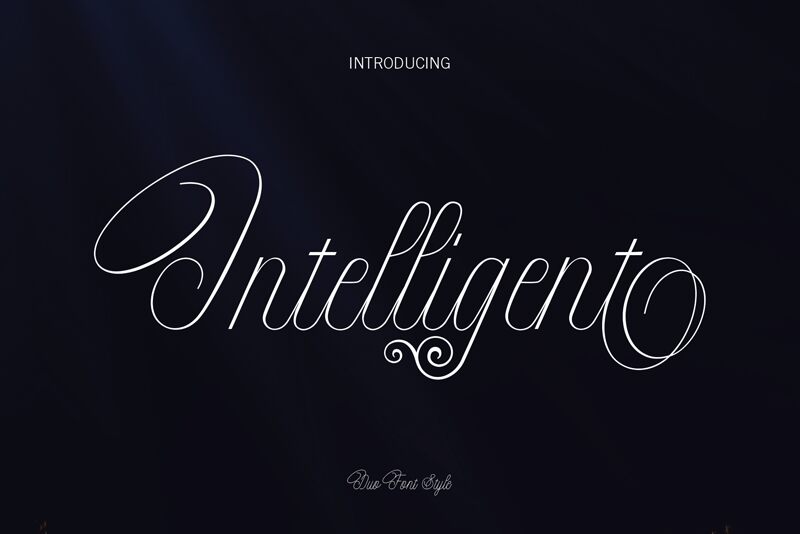
Intelligent Line, crafted by Danti Studio, is a refined and contemporary calligraphic font from the Intelligent family. This handwritten typeface exudes a modern elegance with its unique, natural writing style. Its light weight paired with an appealingly condensed width offers an airy yet sophisticated feel, making it stand out in any design.
Perfect for branding projects, invitations, and editorial pieces, Intelligent Line infuses a touch of class and personality into every letter. It bridges traditional calligraphy with modern aesthetics seamlessly, providing versatility while maintaining its distinctive character. Ideal for designers seeking to impart sophistication and flair to their work, this font ensures that your message is conveyed with grace and finesse.